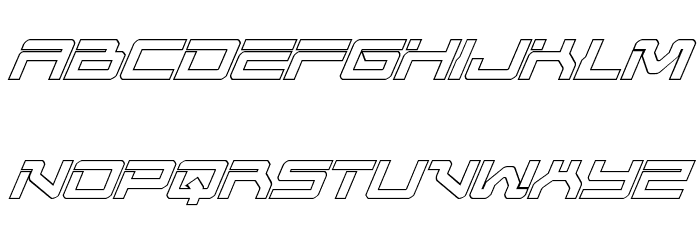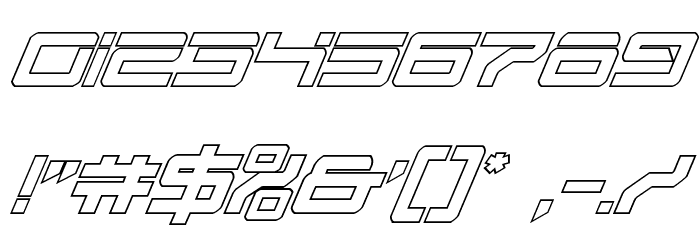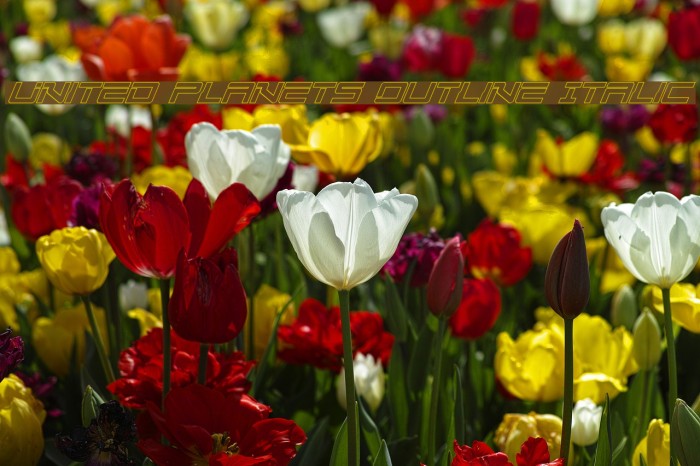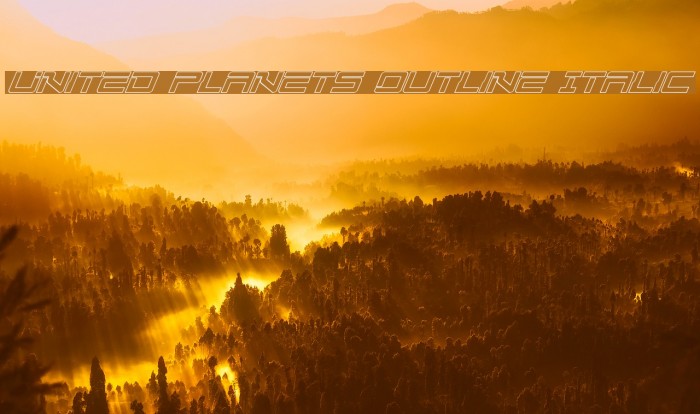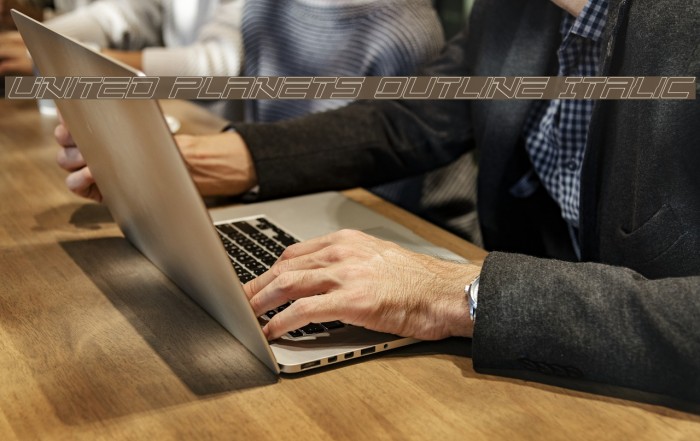
United Planets Outline Italic Font
This font features an outline style with a futuristic and geometric design. The characters are italicized, giving a sense of motion and dynamism. The uppercase and lowercase letters maintain a consistent height, creating a uniform appearance. The strokes are clean and precise, with sharp angles and straight lines that contribute to its modern aesthetic. The numbers and special characters follow the same design principles, ensuring cohesion across all elements. This font's outline nature makes it ideal for projects that require a bold statement without overwhelming the viewer.
A futuristic, italicized outline font with geometric precision.
- Font: United Planets Outline Italic
- Proposed Projects: Ideal for sci-fi themed designs, tech branding, video game titles, and futuristic posters.